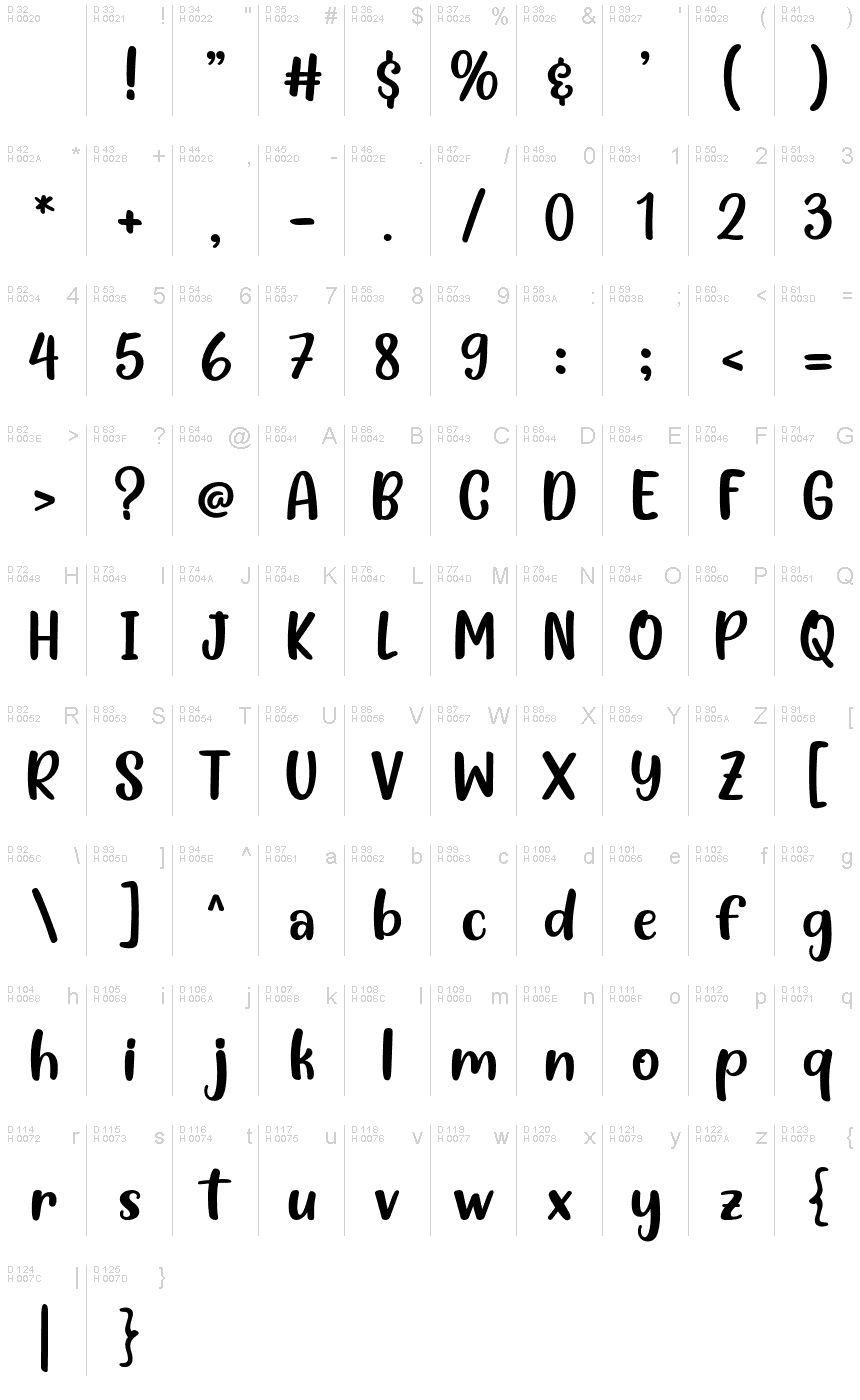
LemonWater-Regular
Introducing Lemon Water font, a bold and lively handwritten typeface by Nico Muslib. Suitable for projects that require a cheerful and whimsical touch, Lemon Water is perfect for adding personality to logos, packaging design, website headers, greeting cards and more.